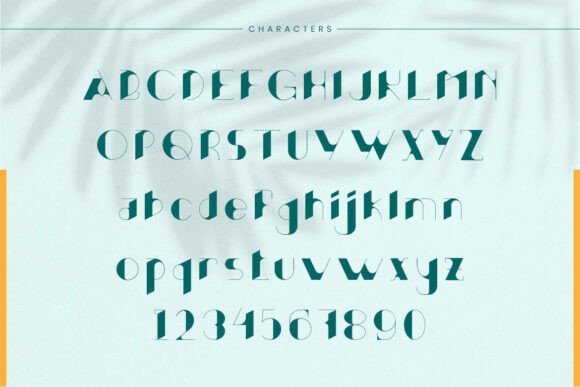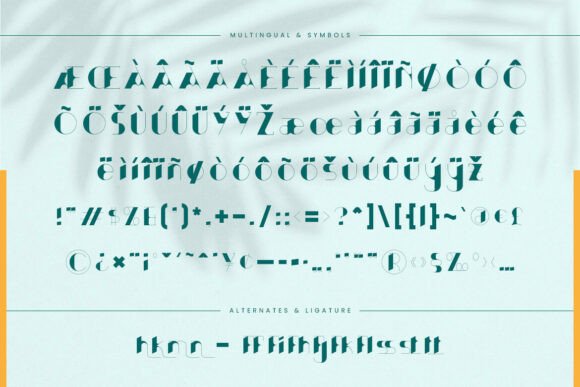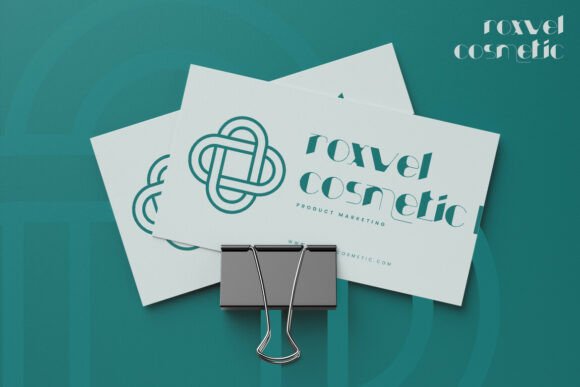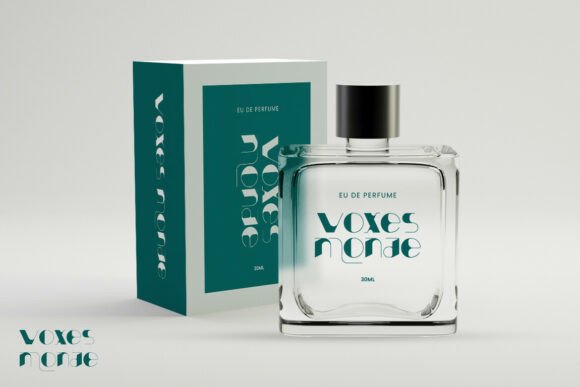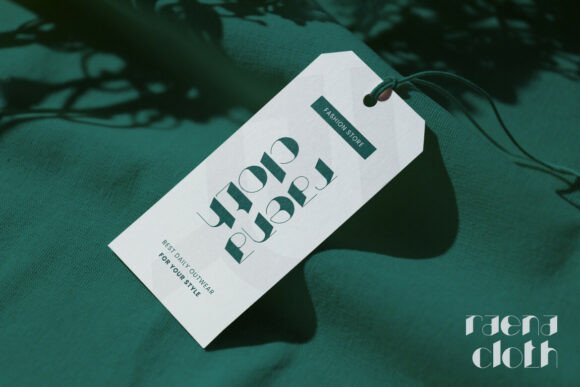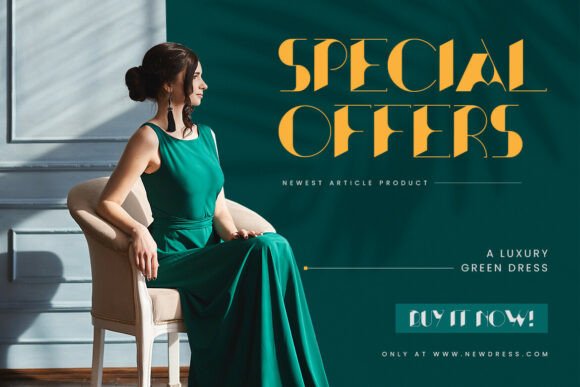
Introduction to Manarox Font
Have you ever been scrolling through a fashion magazine, and a bold, eye-catching headline stops you in your tracks? That’s the magic of typography. For designers, creating a lasting impression is crucial, and the right font can make all the difference. This is where the Manarox Font comes in – a game-changing decorative display typeface that’s set to elevate your creative project to new heights.
With its unique blend of curved strokes and angular edges, the Manarox Font is a design resource that’s hard to ignore. Its high-quality construction and transparent background make it perfect for large-scale typography and branding applications that demand high visual impact. Whether you’re working on a fashion campaign, packaging layout, or editorial headline, this font is sure to make your design stand out from the crowd.
Best of all, the Manarox Font is available for free download, making it an invaluable addition to any designer’s toolkit. In this article, we’ll dive deeper into the world of Manarox Font and explore its many benefits, from its sculpted shapes to its multilingual support. Get ready to take your designs to the next level with this incredible design resource.
Key Features of Manarox Font
- High-quality design for creative projects: Manarox Font is a versatile and modern font perfect for various creative projects, from branding to digital art.
- Unique characteristics: Manarox Font boasts a unique blend of modern and vintage elements, making it an excellent choice for designers seeking a distinctive look.
Honest Review: Manarox Font
As a designer, I’m always on the lookout for high-quality design resources to elevate my creative projects. Recently, I had the chance to try out the Manarox Font, and I must say it’s a great addition to any design library. ✨
The font has a sleek, modern aesthetic that works well for a variety of applications, from logos to digital products. Its clean lines and minimalist design make it perfect for creating a professional and polished look.
One of the standout features of the Manarox Font is its transparent background, which allows for easy layering and compositing. This makes it a great choice for designers who need to create complex designs with multiple elements.
What I Like:
- High-quality design that looks great on a variety of backgrounds
- Transparent background for easy layering and compositing
- May not be suitable for designers who prefer a more playful or distressed look
- Some users may find the font too minimalist, lacking in personality
Overall, I’m impressed with the Manarox Font and would definitely recommend it to designers looking for a high-quality, versatile font for their creative projects.
Tips for Getting the Most Out of Manarox Font
Manarox Font is perfect for designing logos, icons, and graphics for your creative project. It’s also great for creating professional-looking presentations and documents. With its high-quality design and transparent background feature, Manarox Font is a valuable design resource for any designer or artist.